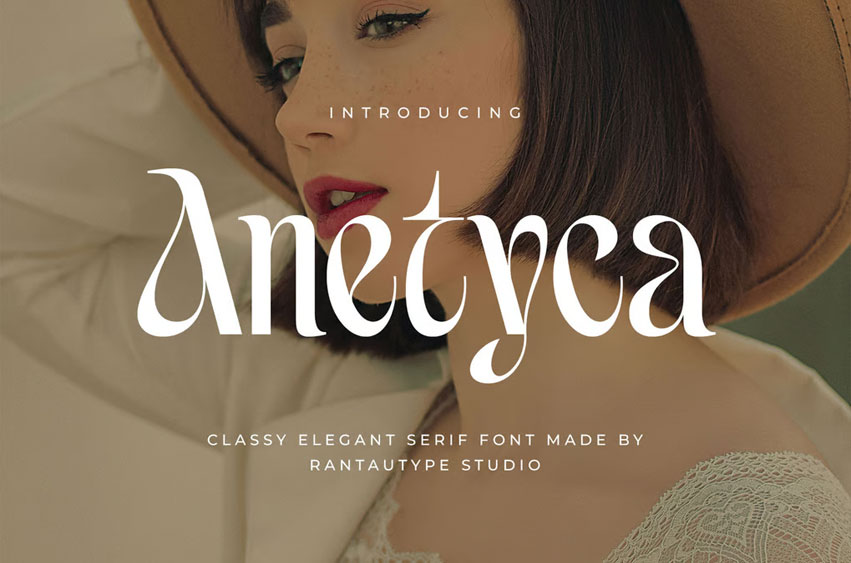
Anetyca Font
Anetyca Font is a classy serif font with slightly contrasting thick and thin lines, giving it a refined look. Anetyca brings a delicate character to add sophistication.
Anetyca is a perfect choice for any creative endeavor, chic, lifestyle design such as logotype, advertisements, watermark on photography, stationery, branding project, display and magazine, invitation, corporate brand, product design, label, business project, and many other projects with a modern touch.